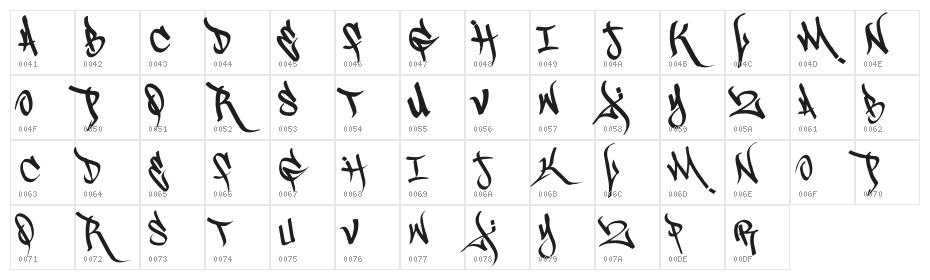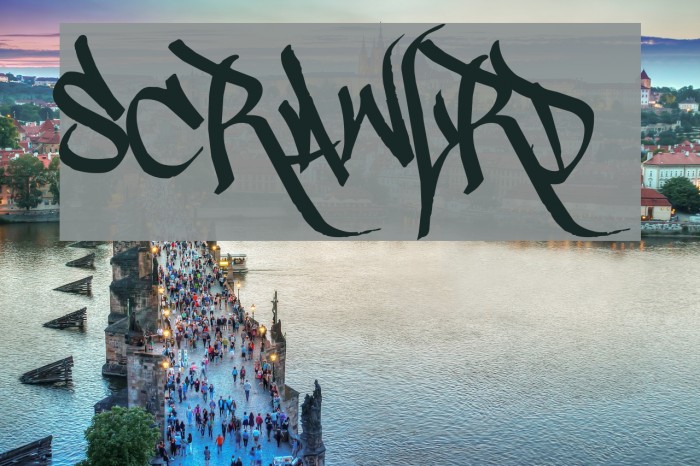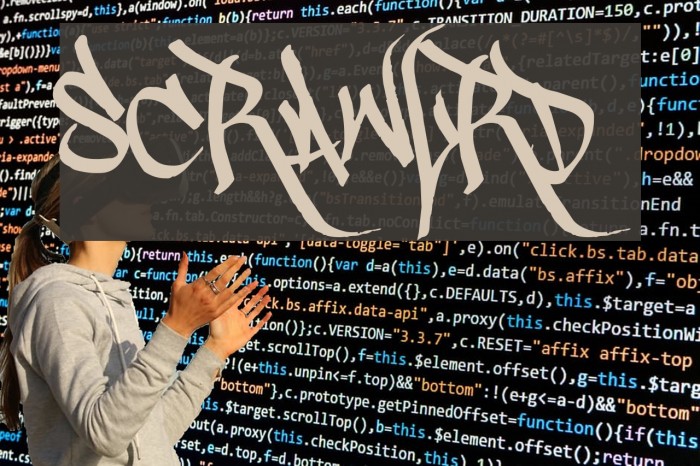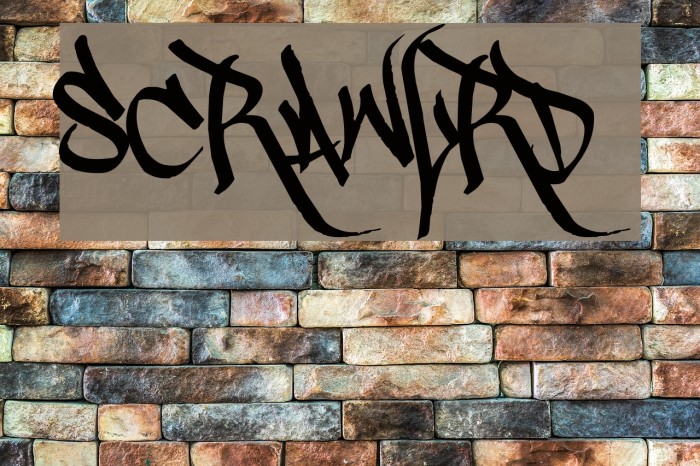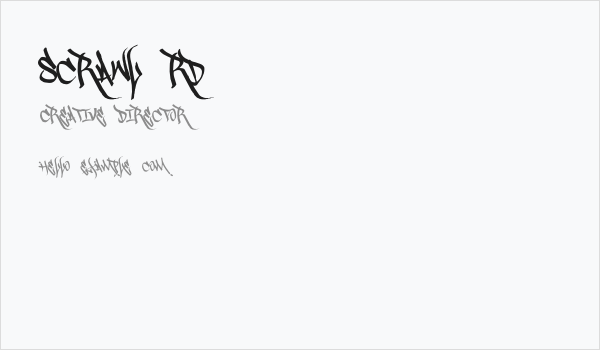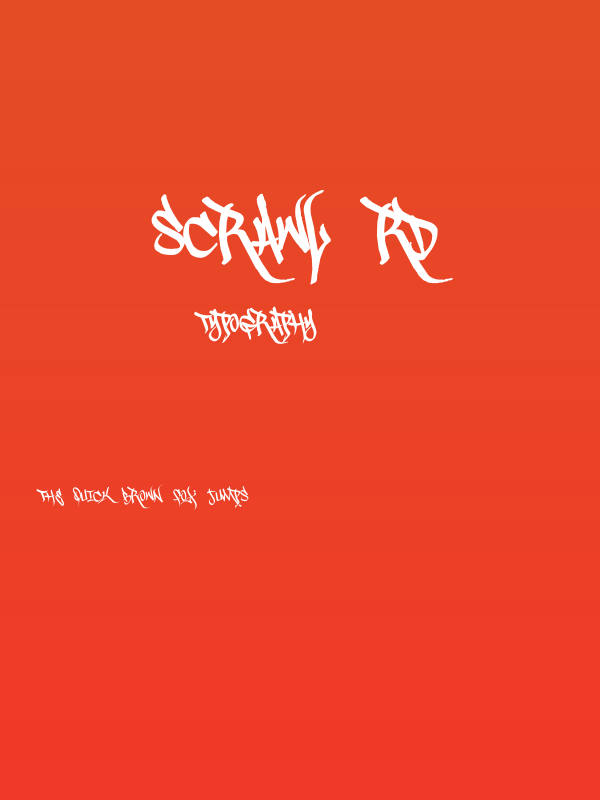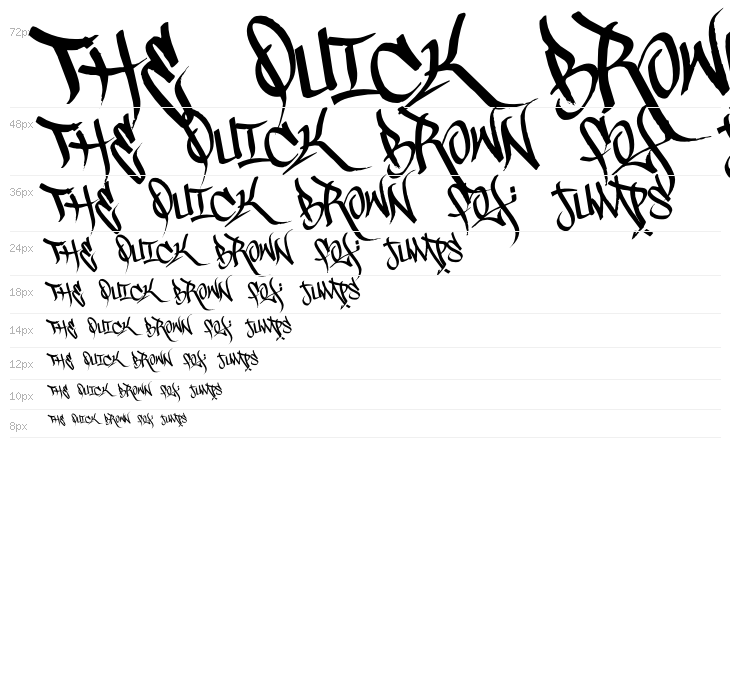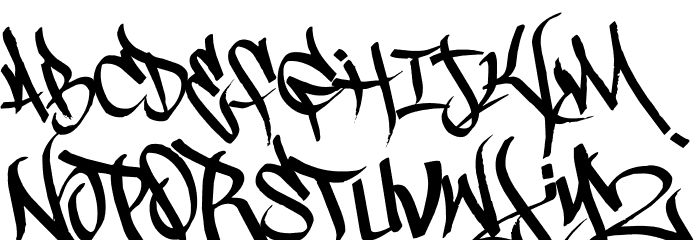
Scrawl3rd Font
Scrawl3rd Description
This font exudes a dynamic and energetic style, reminiscent of urban graffiti art. The letters are bold and expressive, with a fluid, hand-drawn appearance that captures the essence of street culture. Each character is uniquely crafted with exaggerated curves and sharp angles, creating a sense of movement and spontaneity. The font's design is both chaotic and harmonious, with a consistent flow that ties the letters together. Its boldness and artistic flair make it stand out, perfect for projects that require a strong visual impact.
| Overall Style | Urban, Graffiti |
| Use Case | Logos, Posters, Headlines |
| Proposed Projects | Ideal for urban-themed designs, streetwear branding, music album covers, and event posters. |